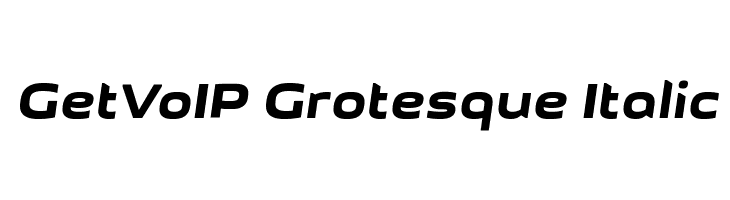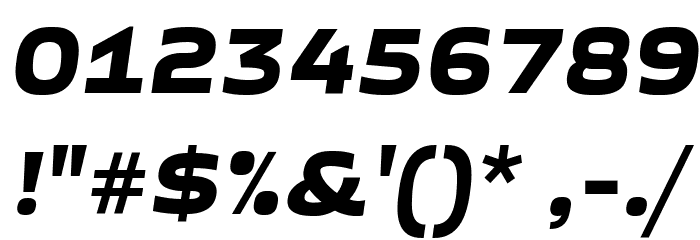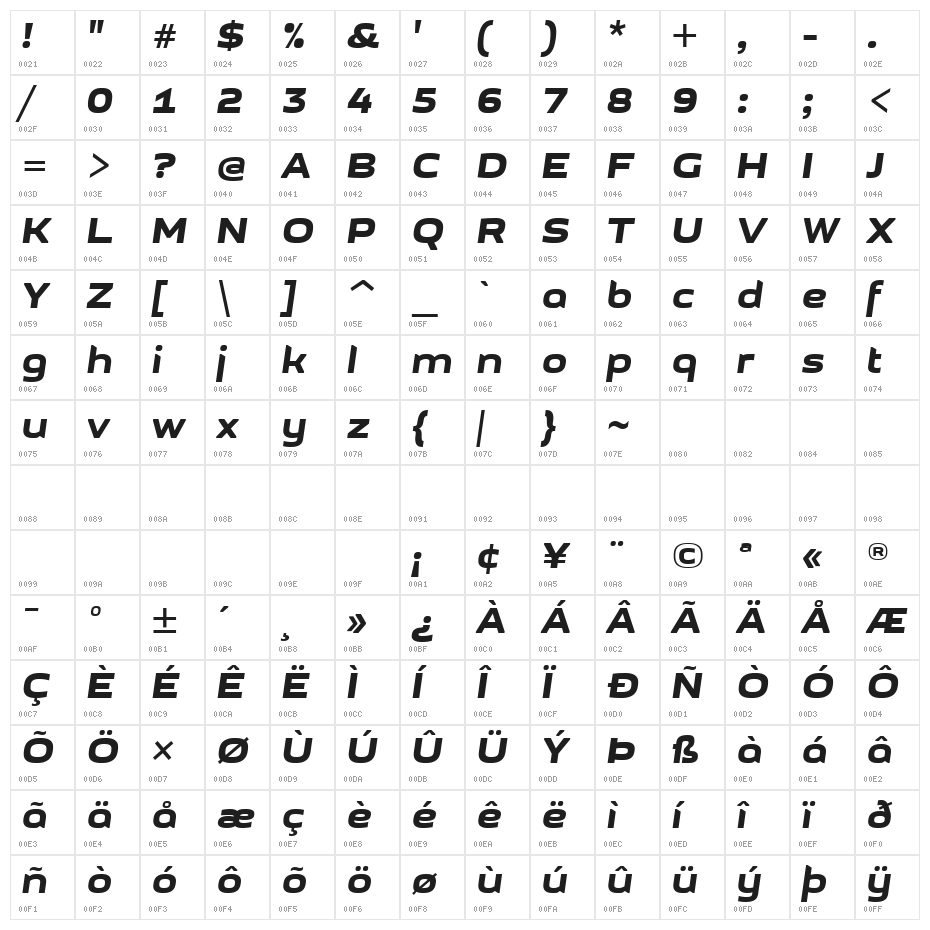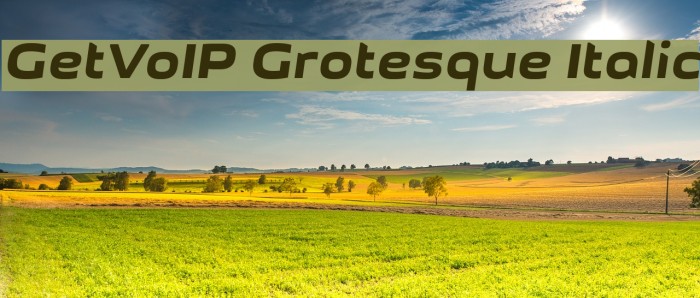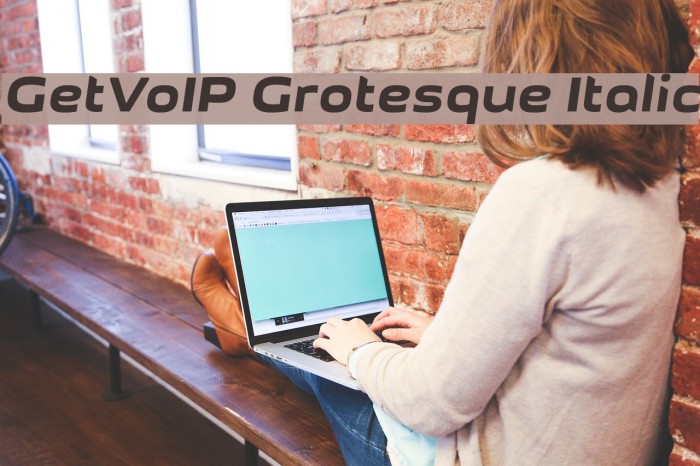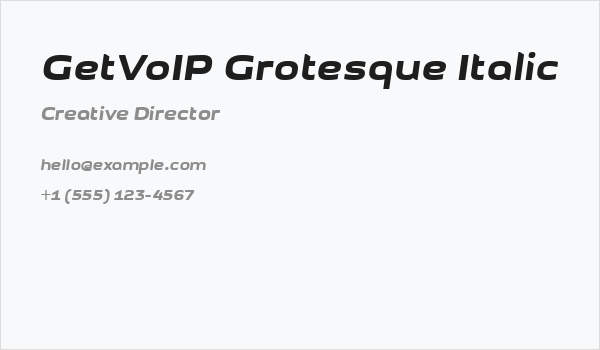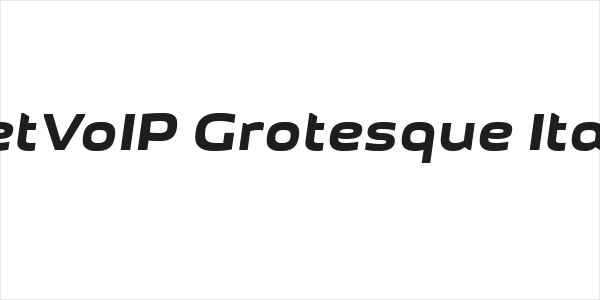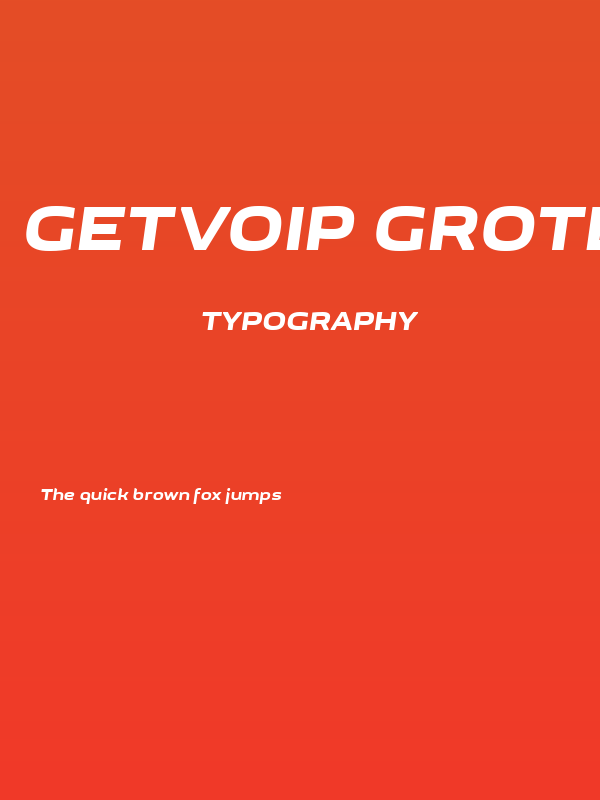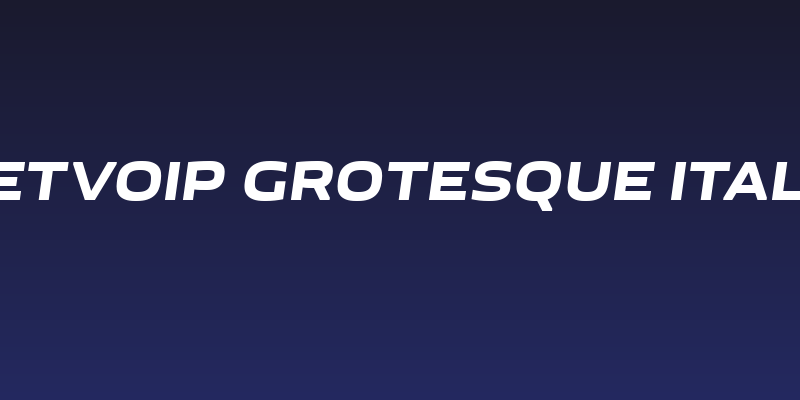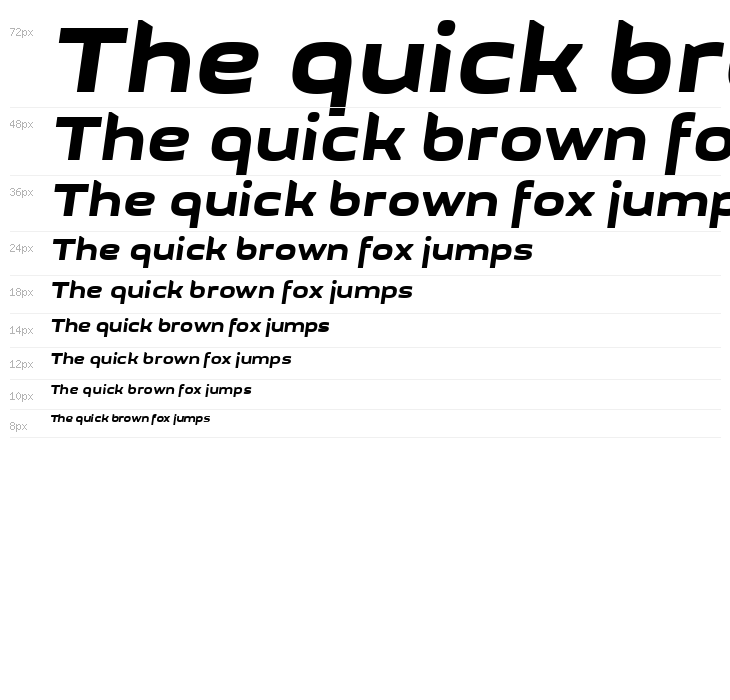
GetVoIP Grotesque Italic Font
GetVoIP Grotesque Italic Description
This font exhibits a modern and sleek design with a distinct italic slant, giving it a dynamic and forward-moving appearance. The characters are bold and well-defined, with a consistent stroke width that maintains readability across various sizes. The uppercase letters are slightly taller than average, while the lowercase letters have a rounded and approachable feel. The numerals are clear and easy to distinguish, making them suitable for both display and text purposes. Special characters are well-integrated, maintaining the overall aesthetic of the font. The spacing between characters is balanced, ensuring legibility without appearing cramped.
| Use Case | Headlines, Logos, Digital Media |
| Proposed Projects | Ideal for branding, advertising, headlines, and digital media where a modern and dynamic look is desired. |